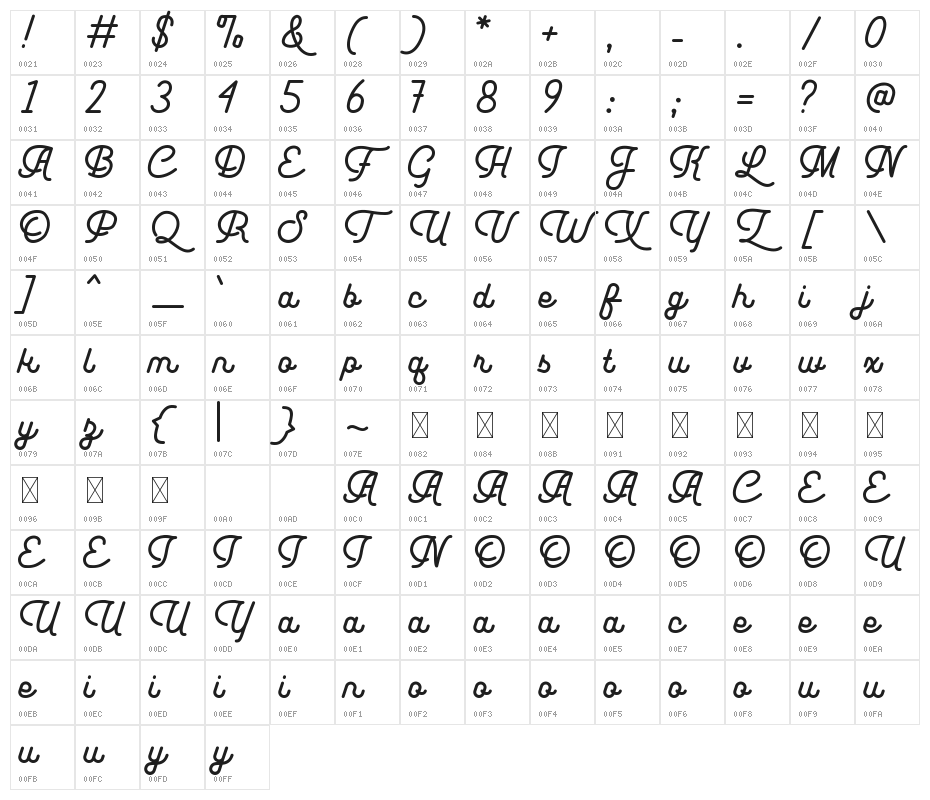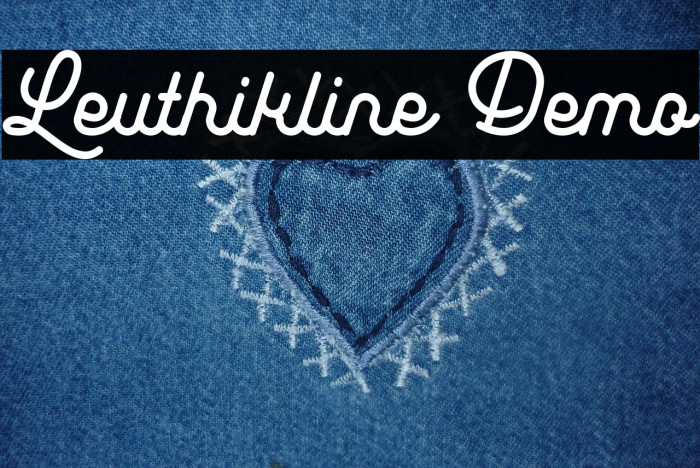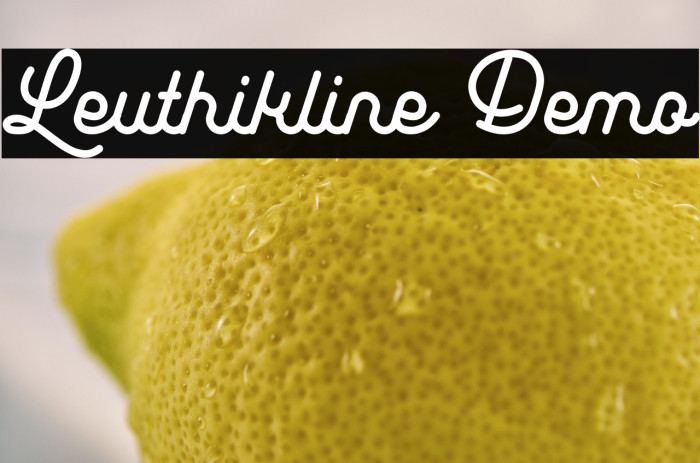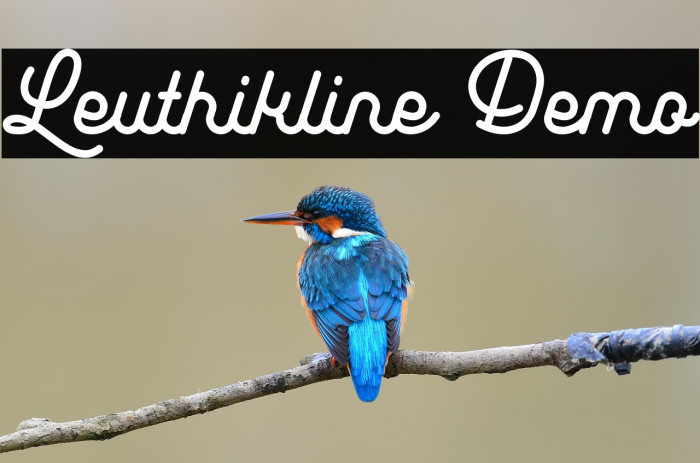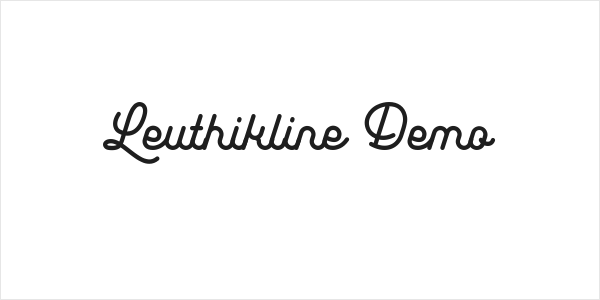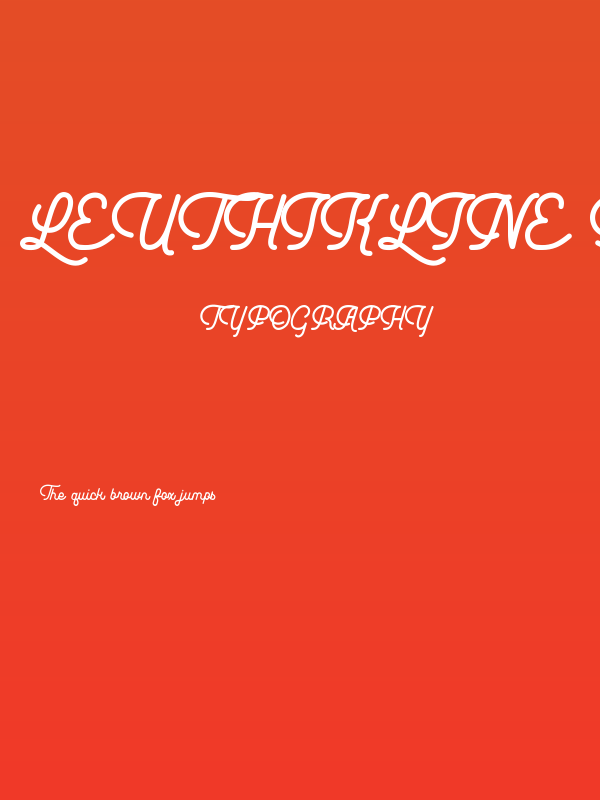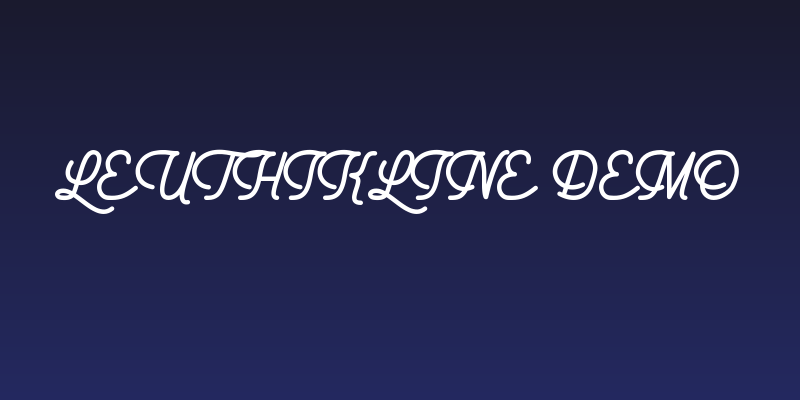
Leuthikline Demo Font
Leuthikline Demo Description
This font features a flowing, cursive style with smooth, continuous strokes that give it an elegant and sophisticated appearance. The uppercase letters are characterized by their graceful loops and curves, while the lowercase letters maintain a consistent flow, enhancing readability. The numerals and special characters are designed to complement the overall script style, maintaining the same fluidity and elegance. This font is well-suited for projects that require a touch of class and refinement, such as invitations, greeting cards, and branding materials. Its design is both timeless and versatile, making it a great choice for a variety of applications.
| Overall Style | Elegant, Sophisticated |
| Use Case | Headlines, Invitations, Branding |
| Proposed Projects | Ideal for invitations, greeting cards, branding, and elegant design projects. |